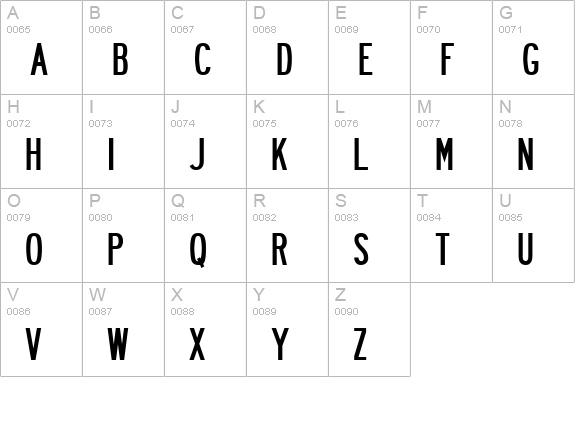
Roadway Font Details
Introducing Roadway font, a sleek and modern typeface perfect for all your design needs. With its clean lines and bold presence, Roadway font exudes confidence and style. This versatile font is ideal for headlines, logos, posters, and more, adding a touch of sophistication to any project. The best part? Roadway font is completely free to download at FontsMarket.com. This means you can elevate your designs without breaking the bank. Don't miss out on this opportunity to enhance your creative work with the contemporary charm of Roadway font. Download it today and let your creativity shine!